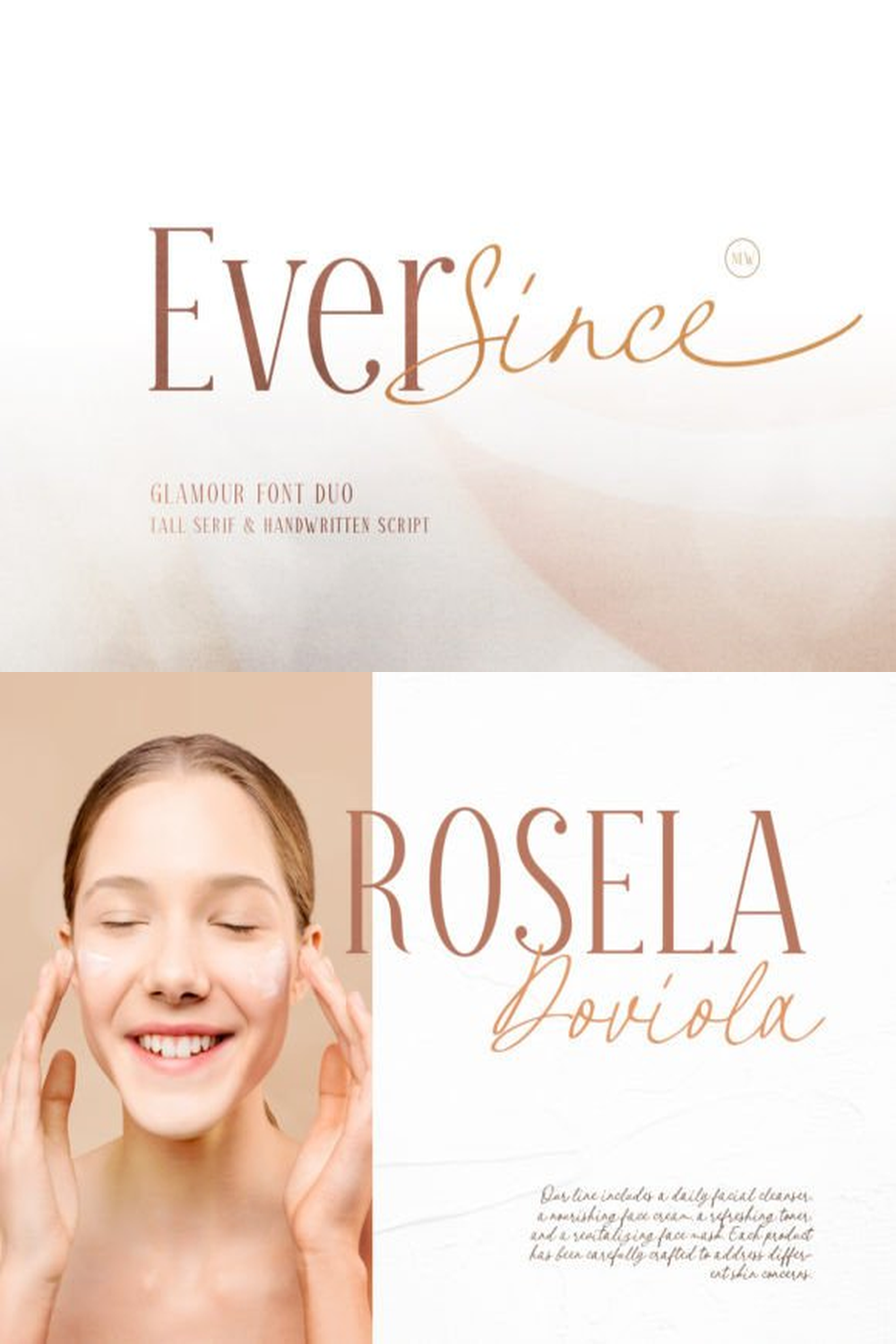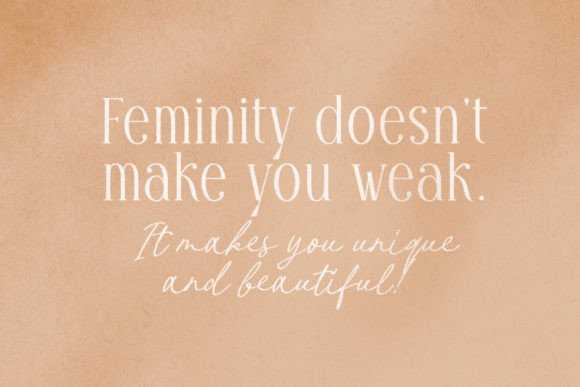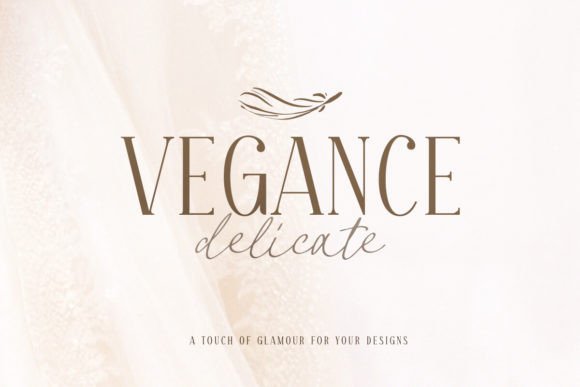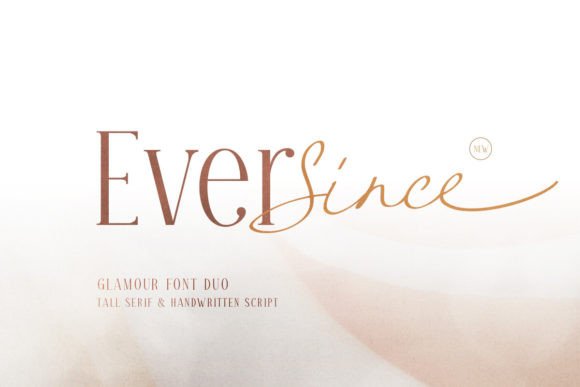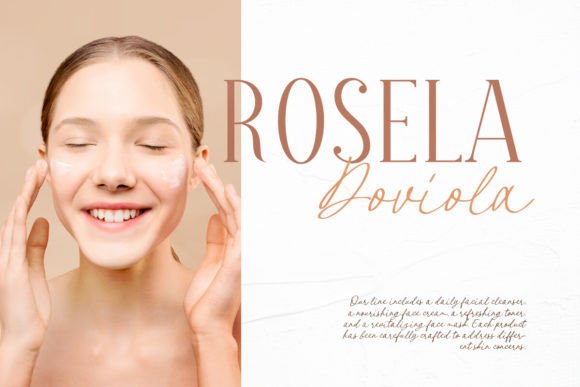
Ever Since Font
About the Ever Since Font
Introducing the Ever Since Font, a beautifully crafted typeface designed to elevate your creative projects. Ever Since is a font duo that contains elegant tall serif and authentic handwriting script. You can use this font for any purpose, such as branding, or logo, and suitable for wedding invitations. The tall serif includes uppercase, lowercase, symbol, and punctuation. The script has an ending swash that you can access from the Opentype feature. With minimalist and clean looks, this font is so versatile and for timeless use.
Ever Since’s elegant tall serif excels in headlines, logos, and short-form text on packaging or invitations, delivering a sophisticated yet approachable feel. Its clean lines and tall x-height ensure excellent readability in these applications. However, the serif is less suitable for body copy or UI elements; its refined detailing can become visually overwhelming in extended blocks of text.
The accompanying script is ideal for adding a touch of handcrafted charm to wedding invitations, short quotes, or branding elements requiring a personal touch. Pair the serif with a clean sans-serif like Lato or Montserrat for a contemporary contrast, or a geometric sans-serif like Futura for a more modern and minimalist aesthetic. Pairing the script with a delicate serif like Playfair Display adds to the overall elegant tone.
The overall personality of Ever Since is sophisticated and timeless, leaning towards elegance without being overly fussy. Its versatility lies in the successful balance between the refined serif and the expressive script, offering designers options for both formal and slightly more informal applications.